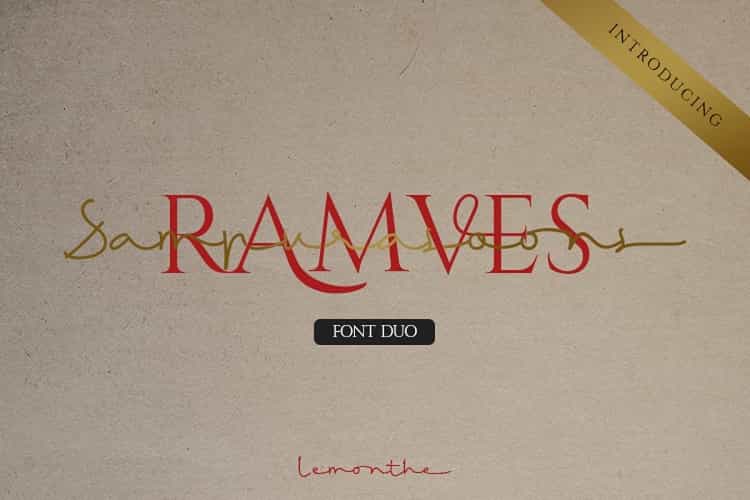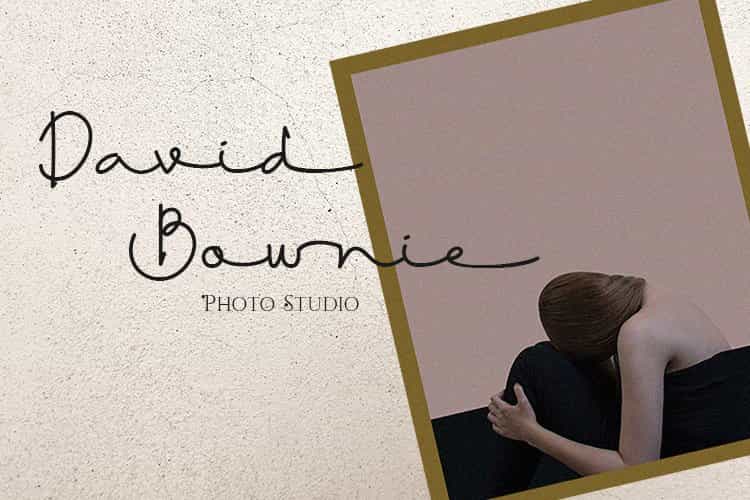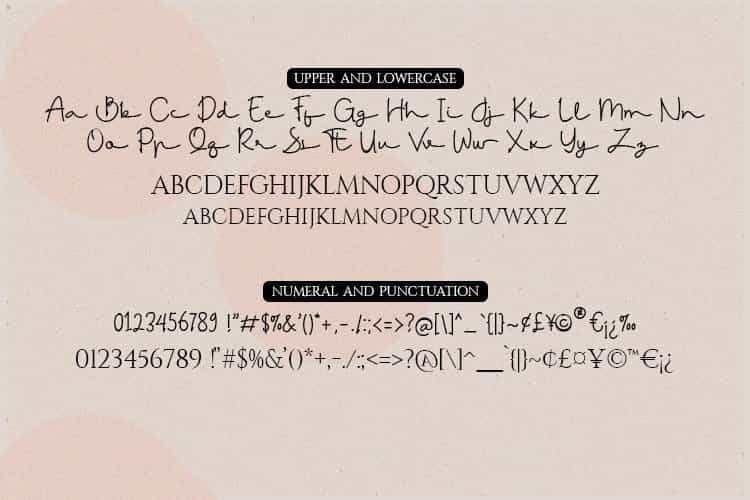
Discover Sampurasoons Ramves Font Duo, part of the Handwritten Serif Monoline collection—a versatile and unique font perfect for adding a personal touch to your projects. Download it for free and enjoy crafting designs with style, from invitations to social media posts. This font is available exclusively for personal use, giving you the freedom to create without limits. Unlock your creativity with Sampurasoons Ramves Font Duo today!
Sampurasoons Ramves Font is the typeface which has two faces and is the combination of both serif ligature and the handwritten monoline script. It is suitable for invitations, wedding announcements, everything regarding weddings, photograpy, banners on Social Networks, packaging, flowers, and etc. It is also well suited as greeting cards and just about everything in-between.